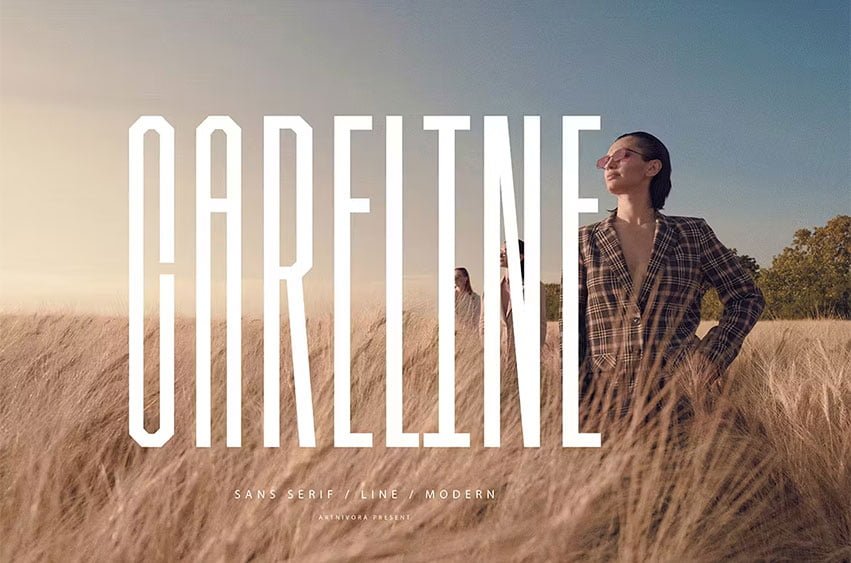
Careline Font is a simple and sans serif font. So perfect for you who needs a typeface for logo designs, magazine, social media, brochure, and many more.